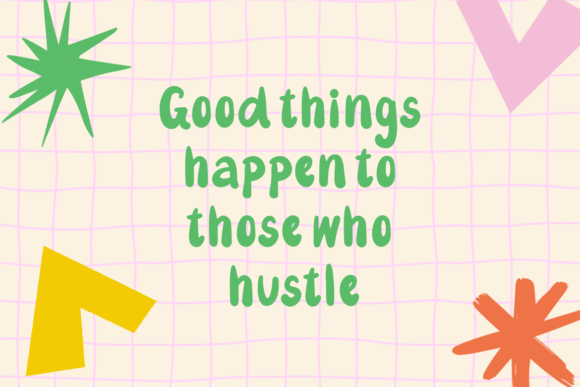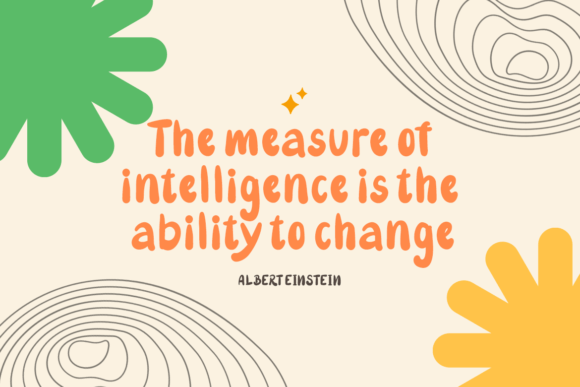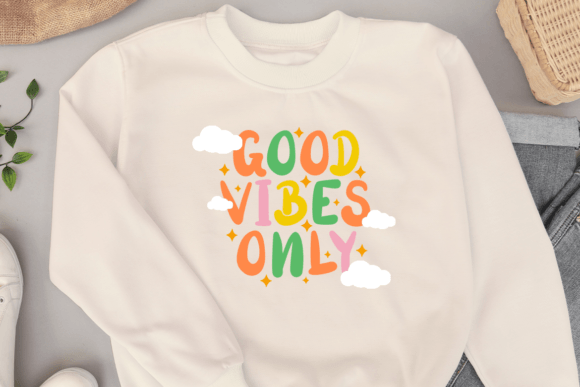
Introduction to Rustic Flower Font
As a designer, there’s nothing quite like the thrill of stumbling upon a new font that perfectly captures the essence of your creative vision. For me, it was the moment I discovered the Rustic Flower Font – a high-quality display font that immediately elevated my design project from good to great. Its unique blend of whimsy and sophistication added a touch of magic to my digital artwork, and I knew I had to share it with the world.
| 👤 Author | Masa Aska Sanurumi |
Whether you’re a seasoned pro or a budding designer, the Rustic Flower Font is an invaluable resource for any creative project. Its transparent background and free download make it an instant favorite among designers, while its versatility ensures it will never go out of style. Whether you’re crafting greeting cards, designing headlines, or working on a large-scale branding project, this font is sure to bring a touch of elegance and sophistication to your work.
Key Features of Rustic Flower Font
- Unique, hand-drawn design with a high-quality aesthetic, perfect for creative projects.
- Features a transparent background, allowing for seamless integration into any design.
- Includes a wide range of characters, including uppercase and lowercase letters, numbers, and punctuation.
- Perfect for use in wedding invitations, greeting cards, and other creative projects where a delicate, floral touch is desired.
Honest Review: Rustic Flower Font
I recently had the chance to work with the Rustic Flower Font, and I must say it’s a high quality design resource that can add a unique touch to any creative project. The font is perfect for those who want to give their design a rustic, vintage feel.
- ✨ The font is highly customizable, making it suitable for a wide range of creative projects.
- ⚠️ The font may not be suitable for modern or minimalist designs, as it has a distinct vintage feel.
- ⚠️ Some users may find the font’s unique characteristics to be distracting or overwhelming.
Overall, I’m impressed with the Rustic Flower Font. It’s a great design resource for those looking to add a touch of whimsy and personality to their creative projects. With its high quality and flexibility, it’s definitely worth considering for your next design project.
The Rustic Flower Font is ideal for use in invitations, greeting cards, and other paper crafts. It’s also perfect for designing branding materials, such as logos and business cards, or creating a beautiful wedding invitation. The high-quality design of the font makes it a versatile design resource for any creative project.